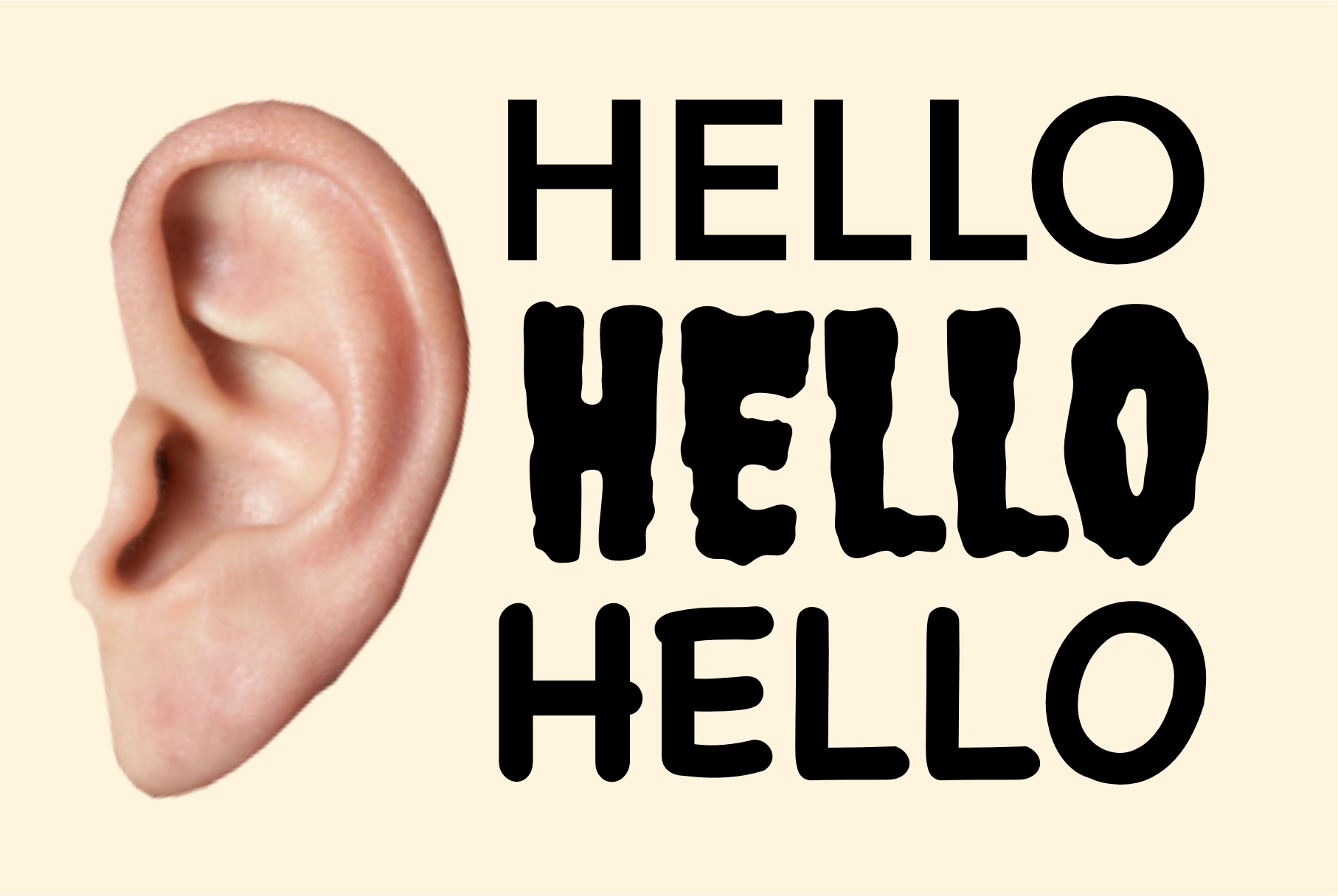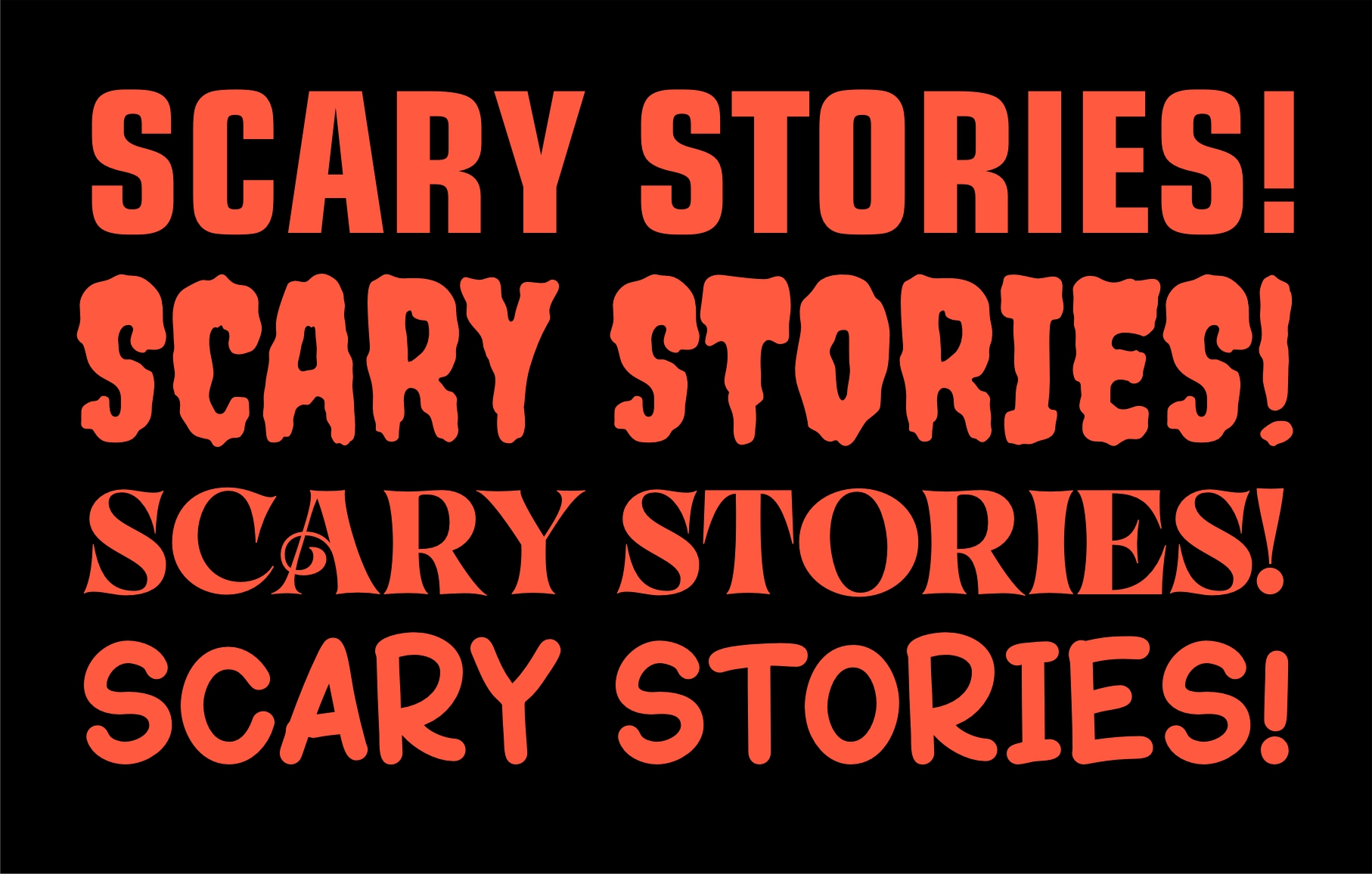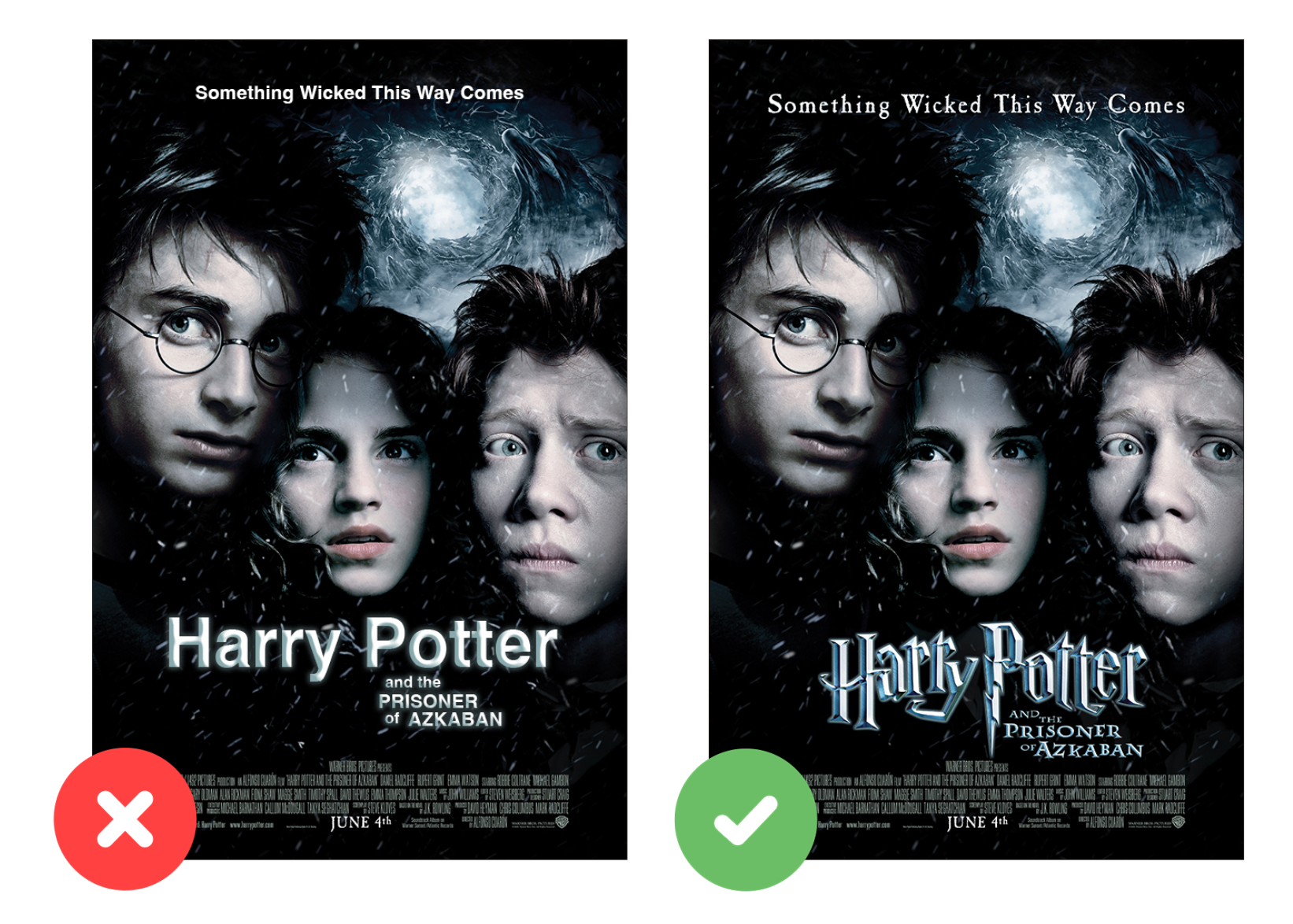
Fonts as a Representation of Sound in Design
In design, fonts serve not only as tools for conveying words, but also as visual representations of sound. Each font has its own character and personality that can evoke specific emotions and associations in the audience.
Why Can Fonts Represent Sound?
How are Fonts Used to Represent Sound in Design?
Examples of Using Fonts as a Representation of Sound
Fonts are a powerful tool for representing sound in design. By choosing the right font and using it creatively, designers can create designs that are not only visually beautiful, but also able to evoke strong emotions and associations in the audience.